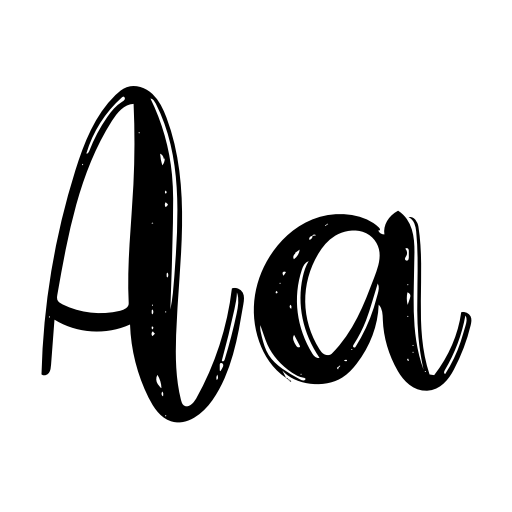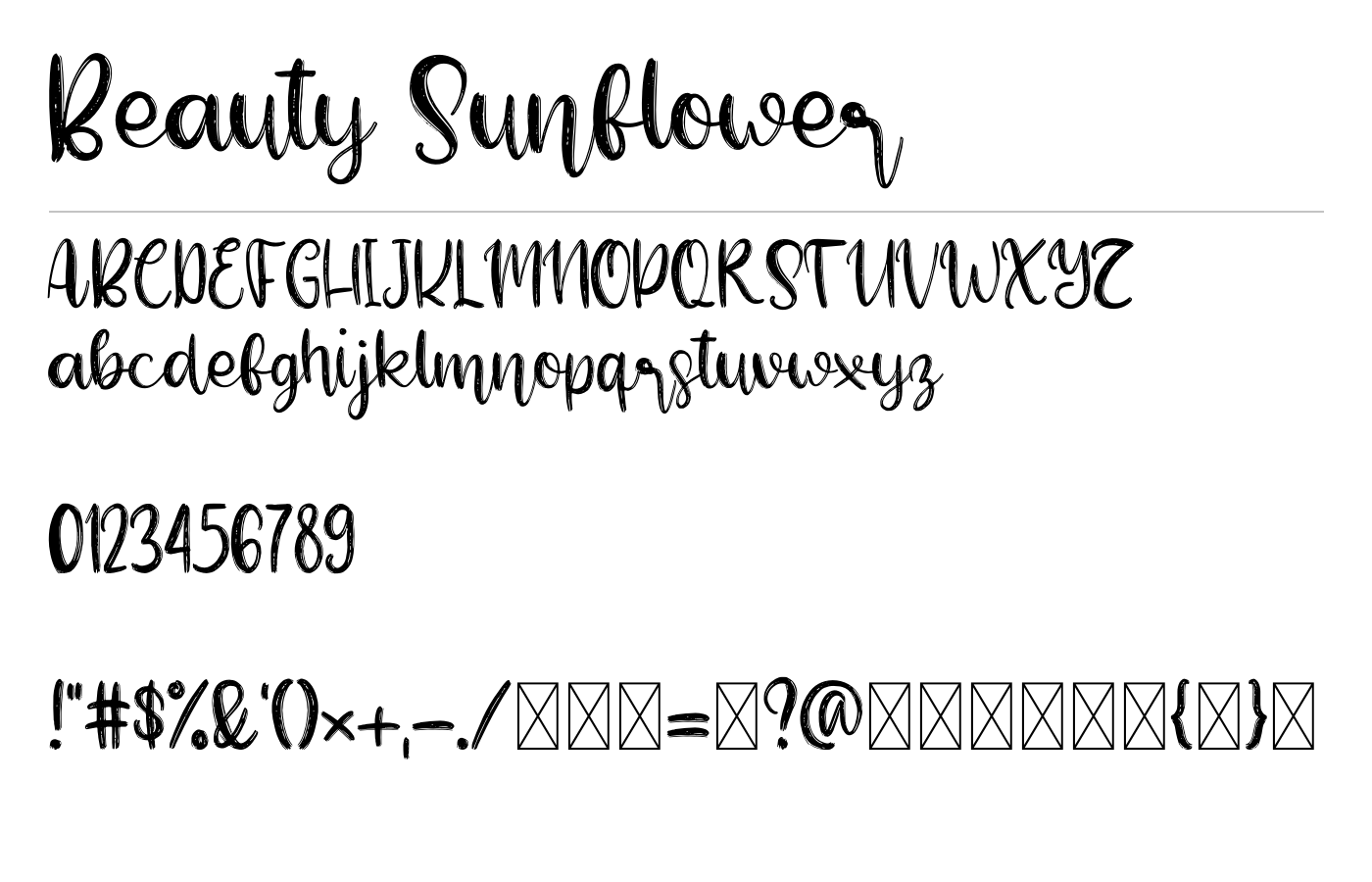
Beauty Sunflower is a playful, hand-drawn script font with a casual and lively feel. Its irregular strokes and tall, narrow letterforms give it a friendly, artistic touch, making it perfect for creative branding, invitations, and feminine design projects that need a personal and approachable vibe. This font works well in headlines and expressive designs where a handwritten charm is desired.
Beauty Sunflower Font
About Beauty Sunflower Font